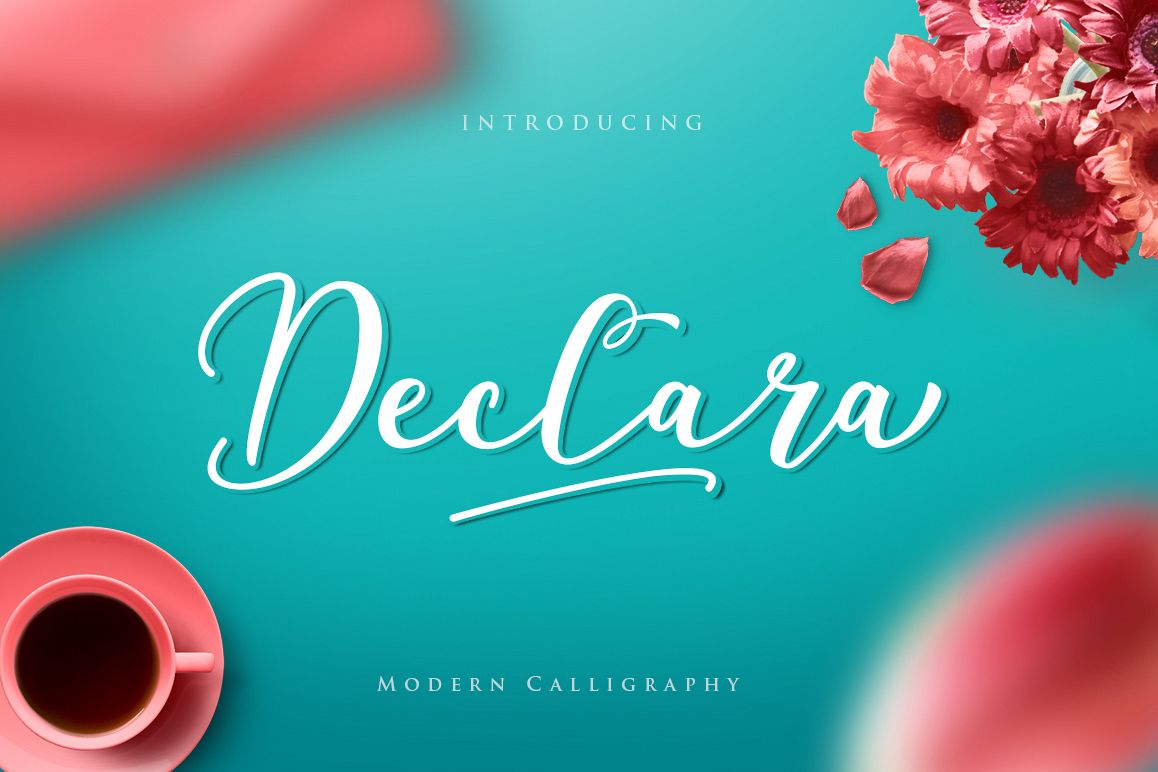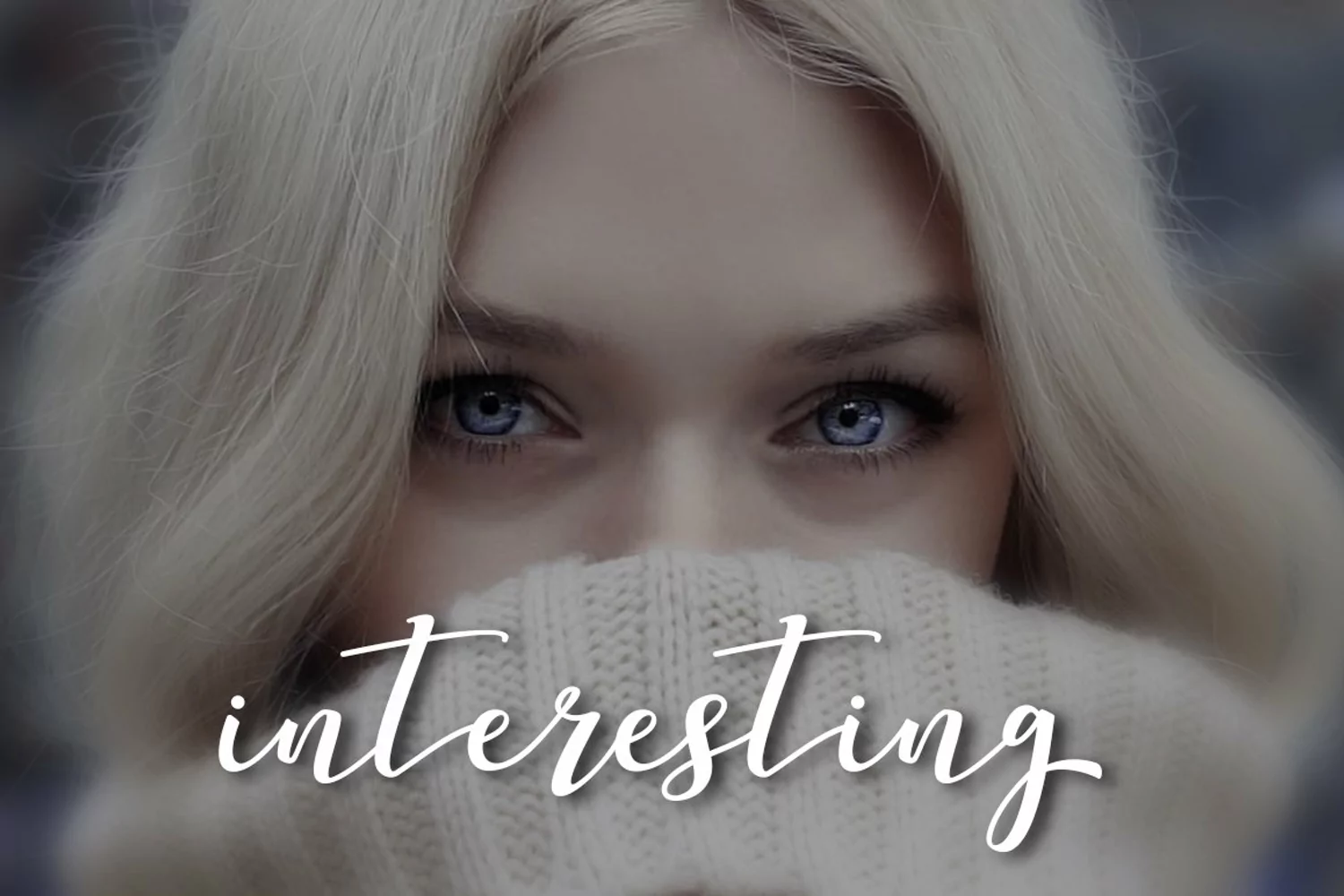
Declara Script
Declara script is a beautiful handmade script font, modern calligraphy & fresh typeface. Declara script suitable for logo, branding, invitation, greeting card, signature, poster and any design that you create.
Declara Script Features:
- Uppercase, Lowercase, Numerals, etc
- Stylistic alternates with number after character
- Multilanguages
- Alternate after letter with number (1 or 2)